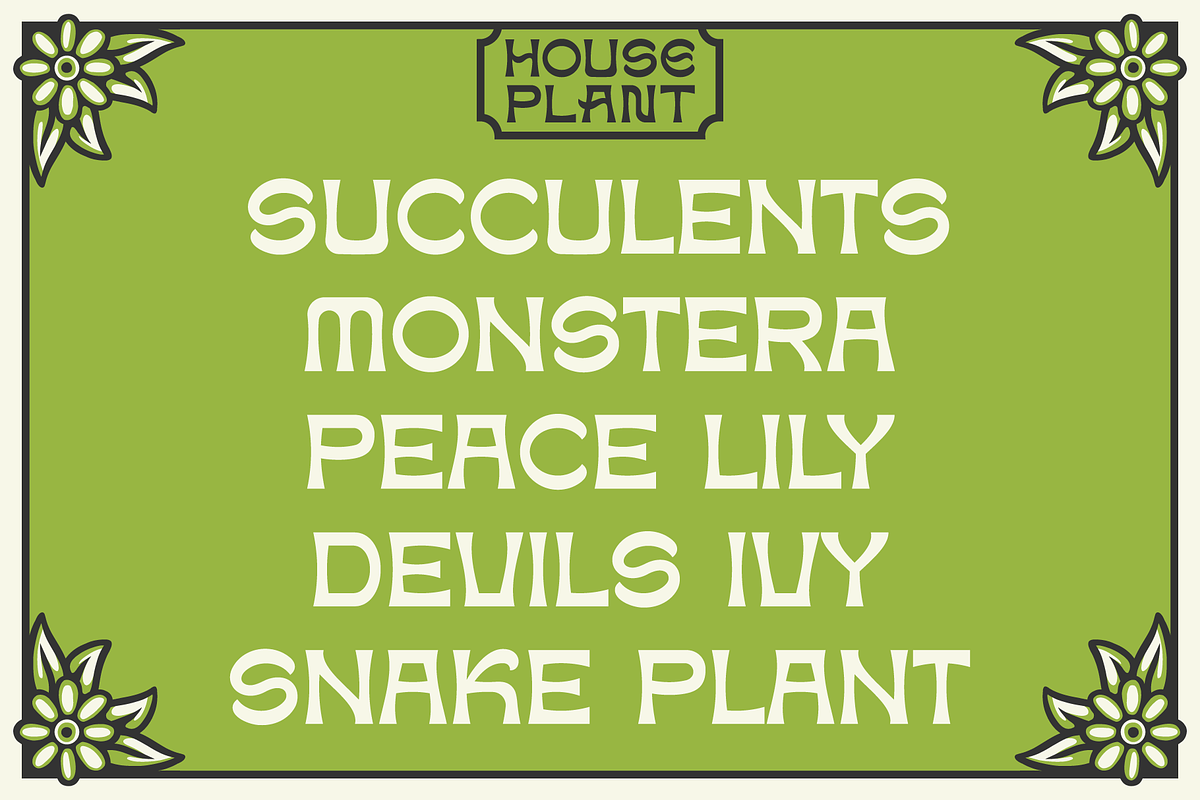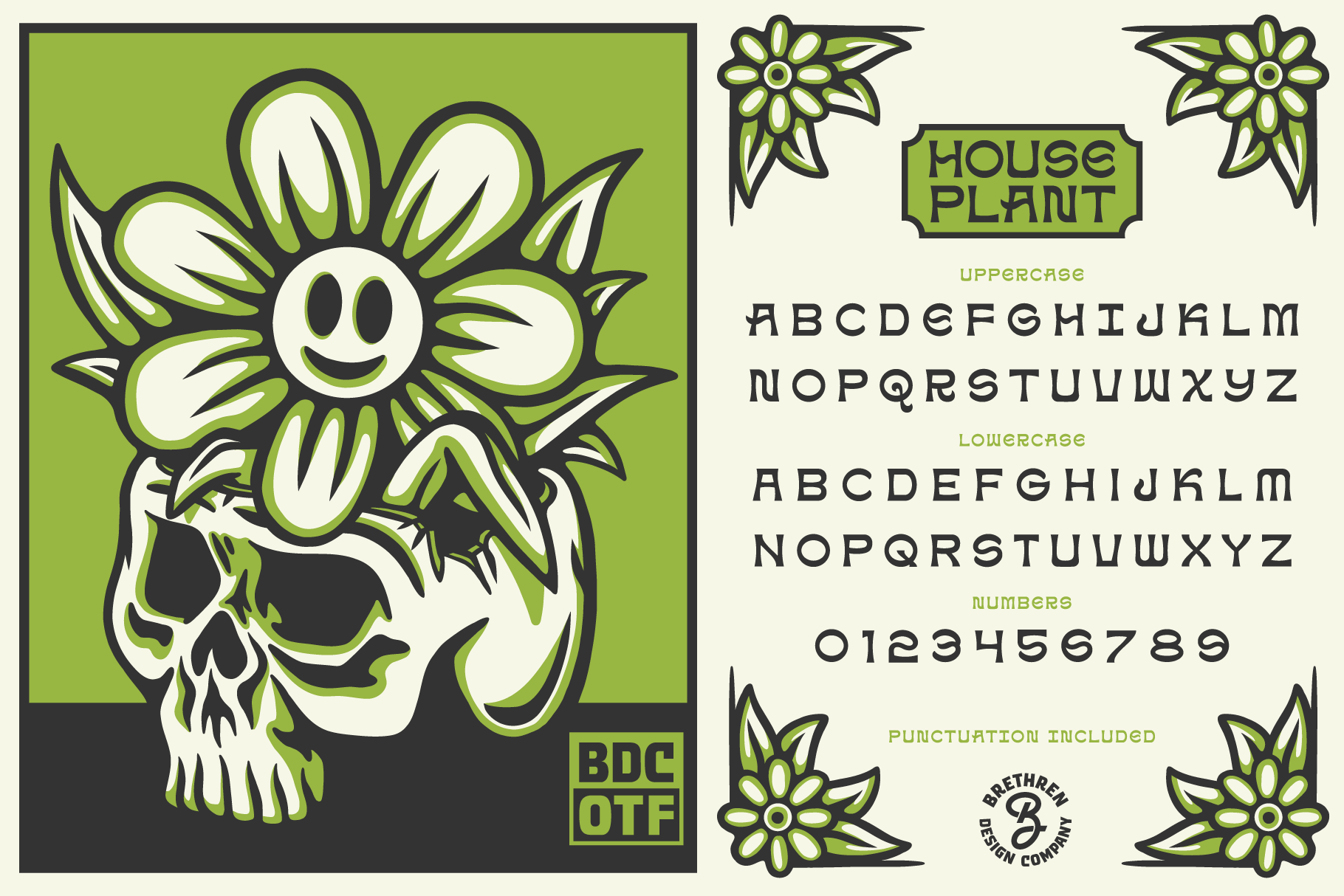
House Plant Display Font
House Plant is a distinct visually artisanal display font with some leafy stems. Toggle between uppercase and lowercase to get up to 17 alt letters. Numbers and punctuation included.